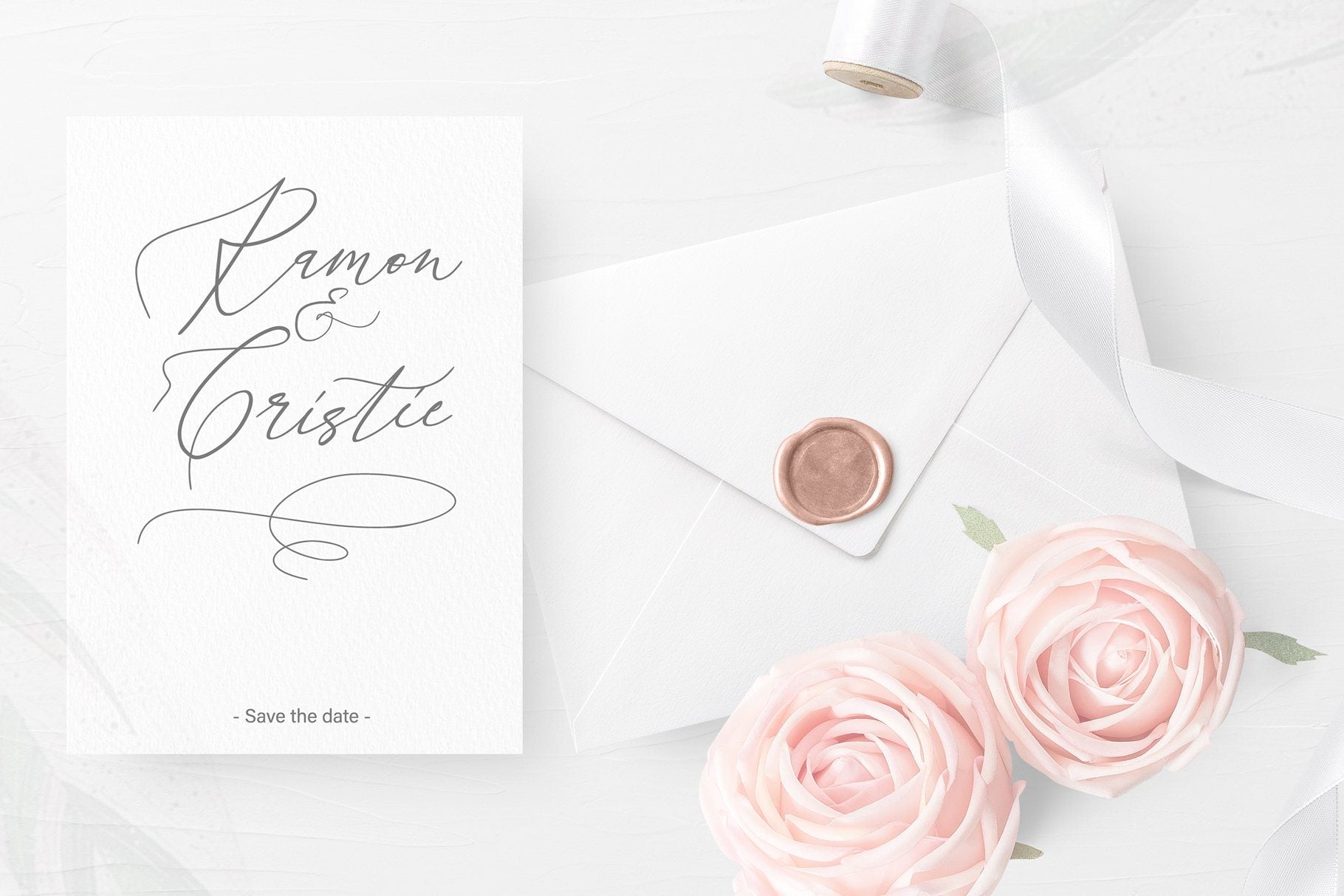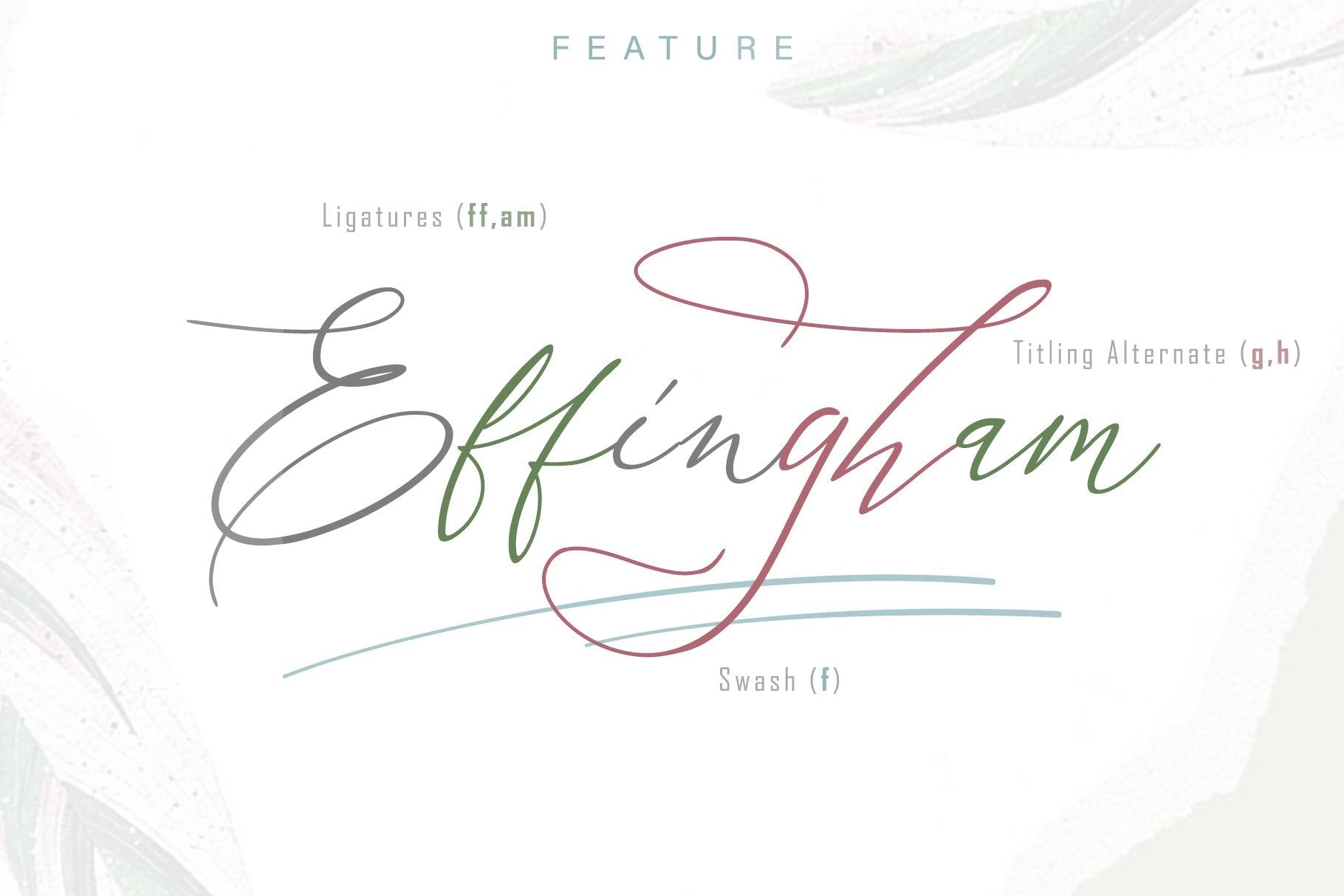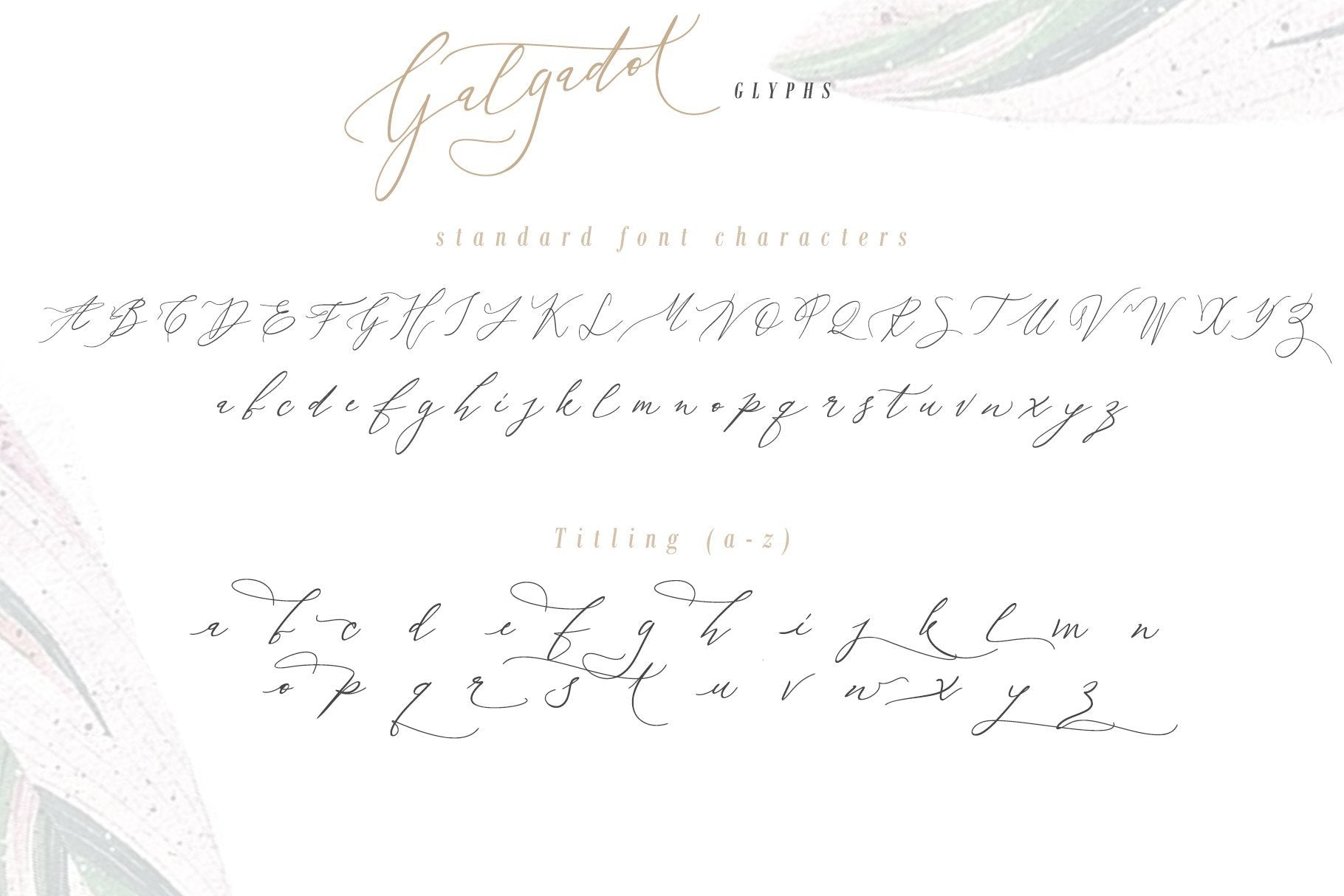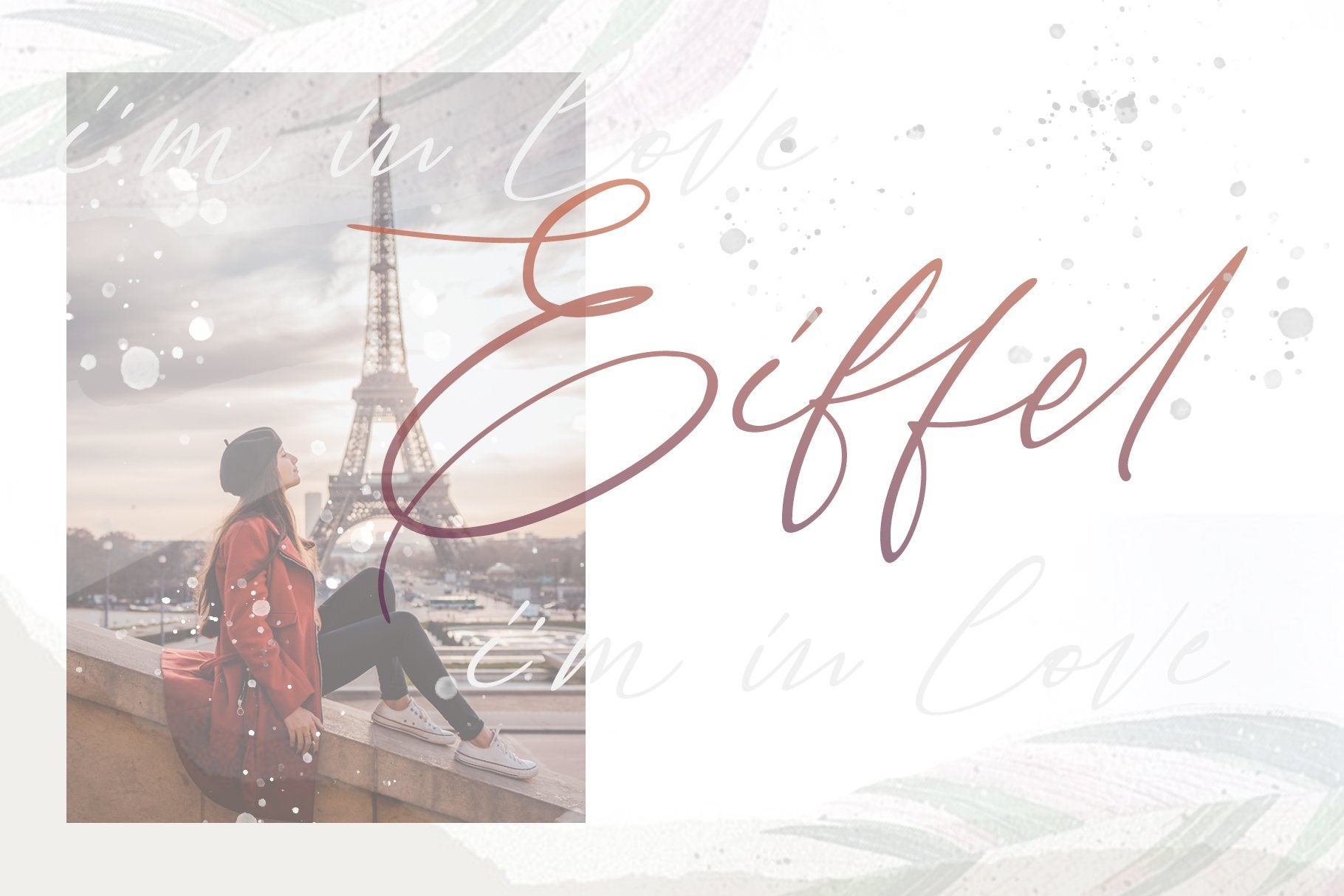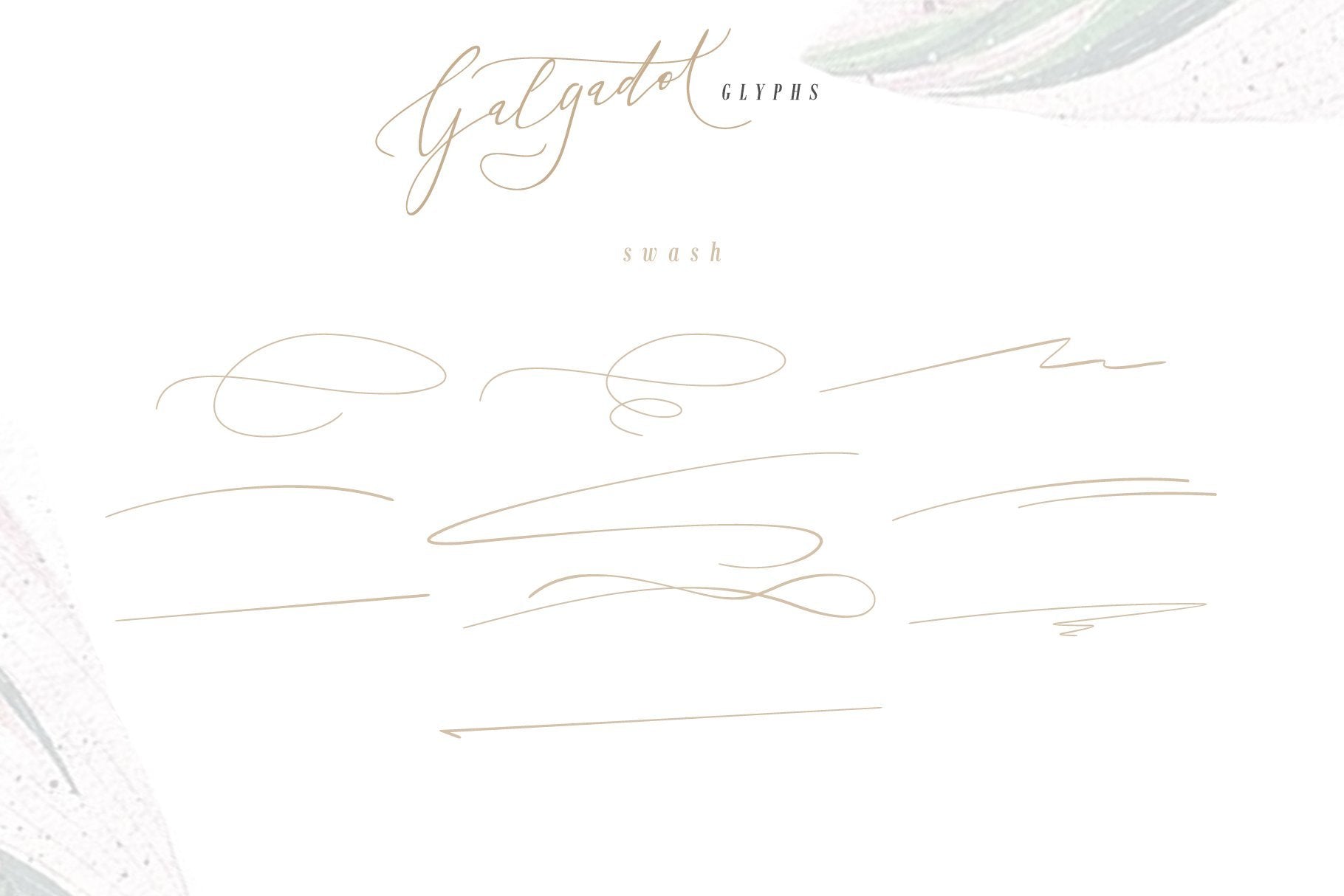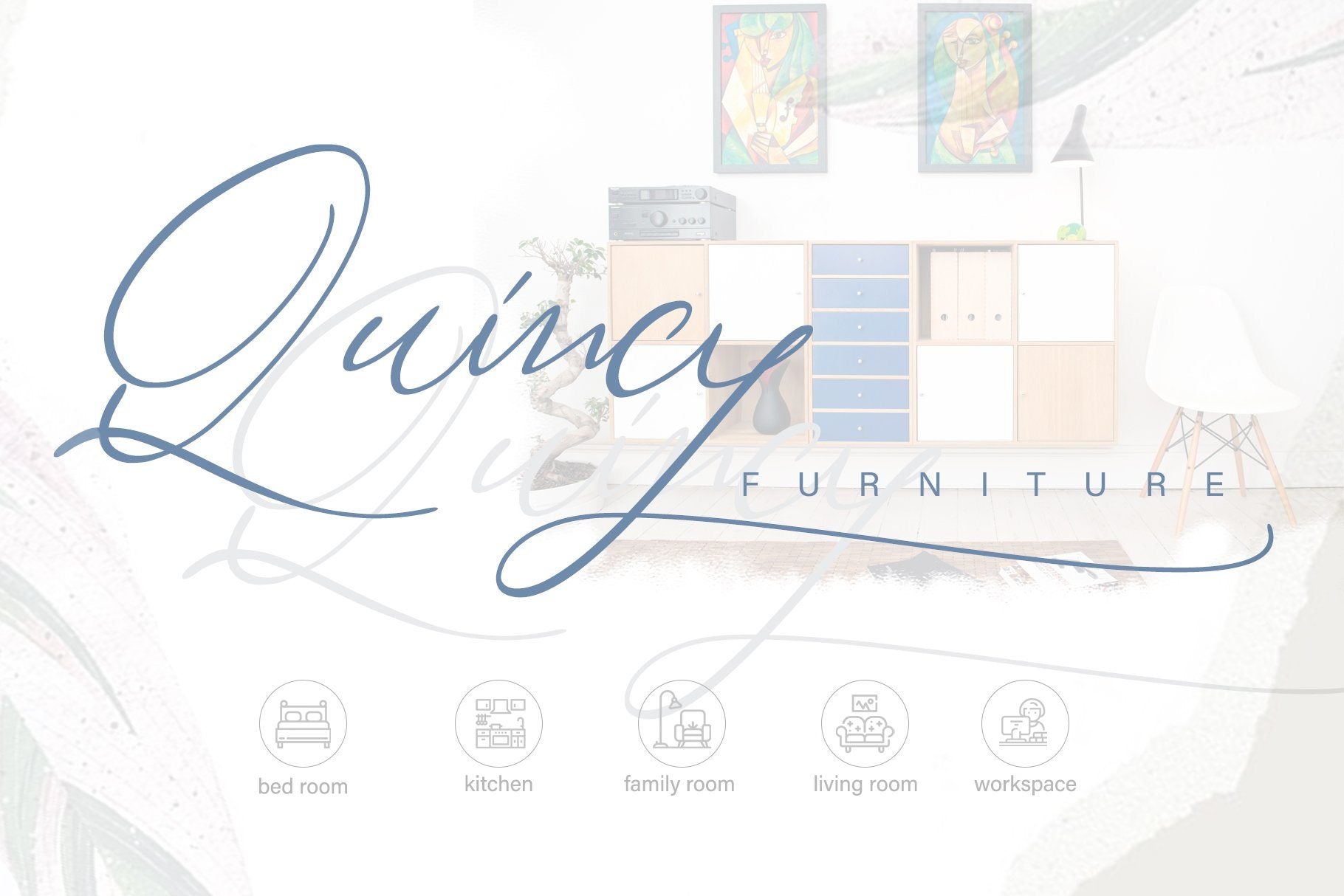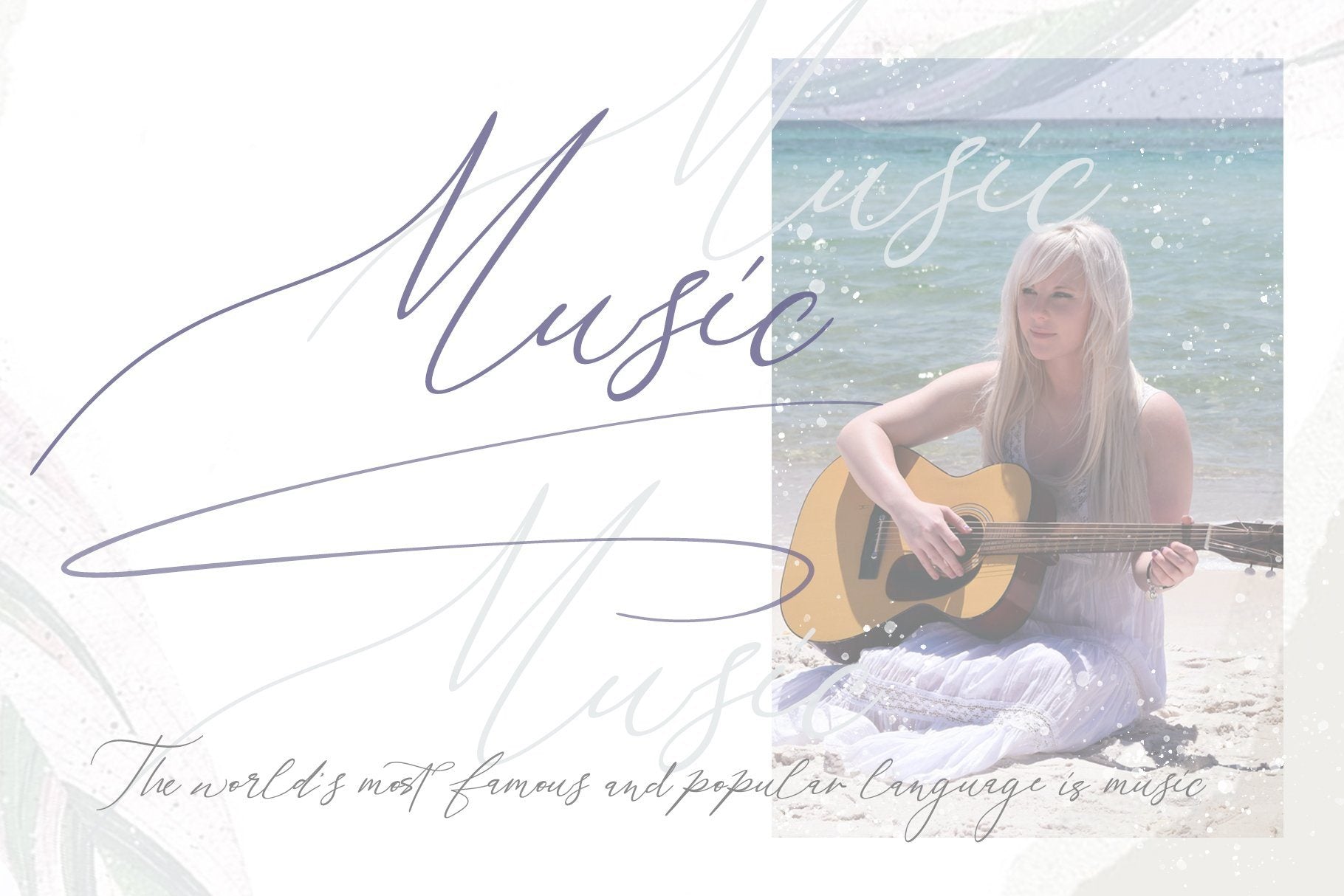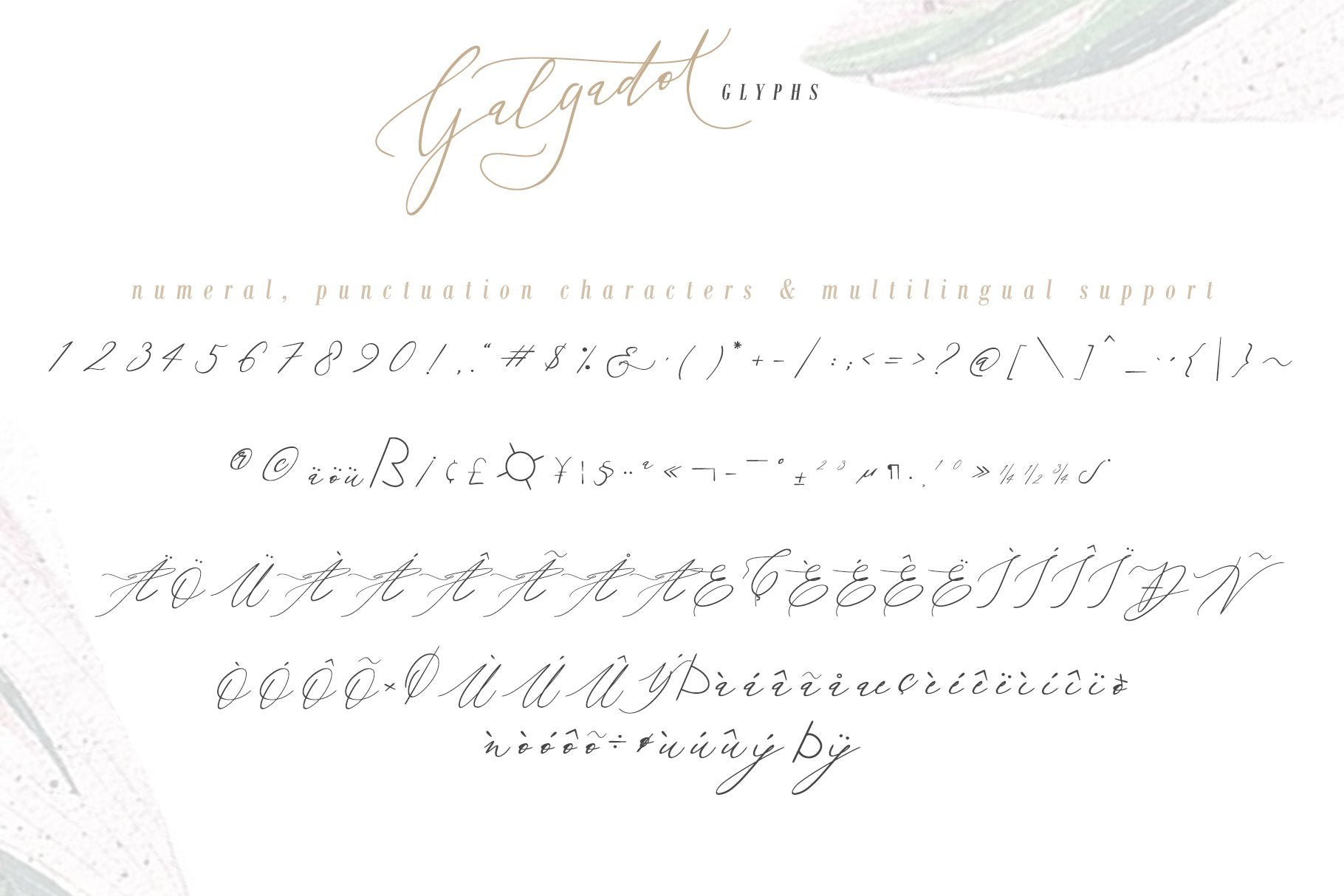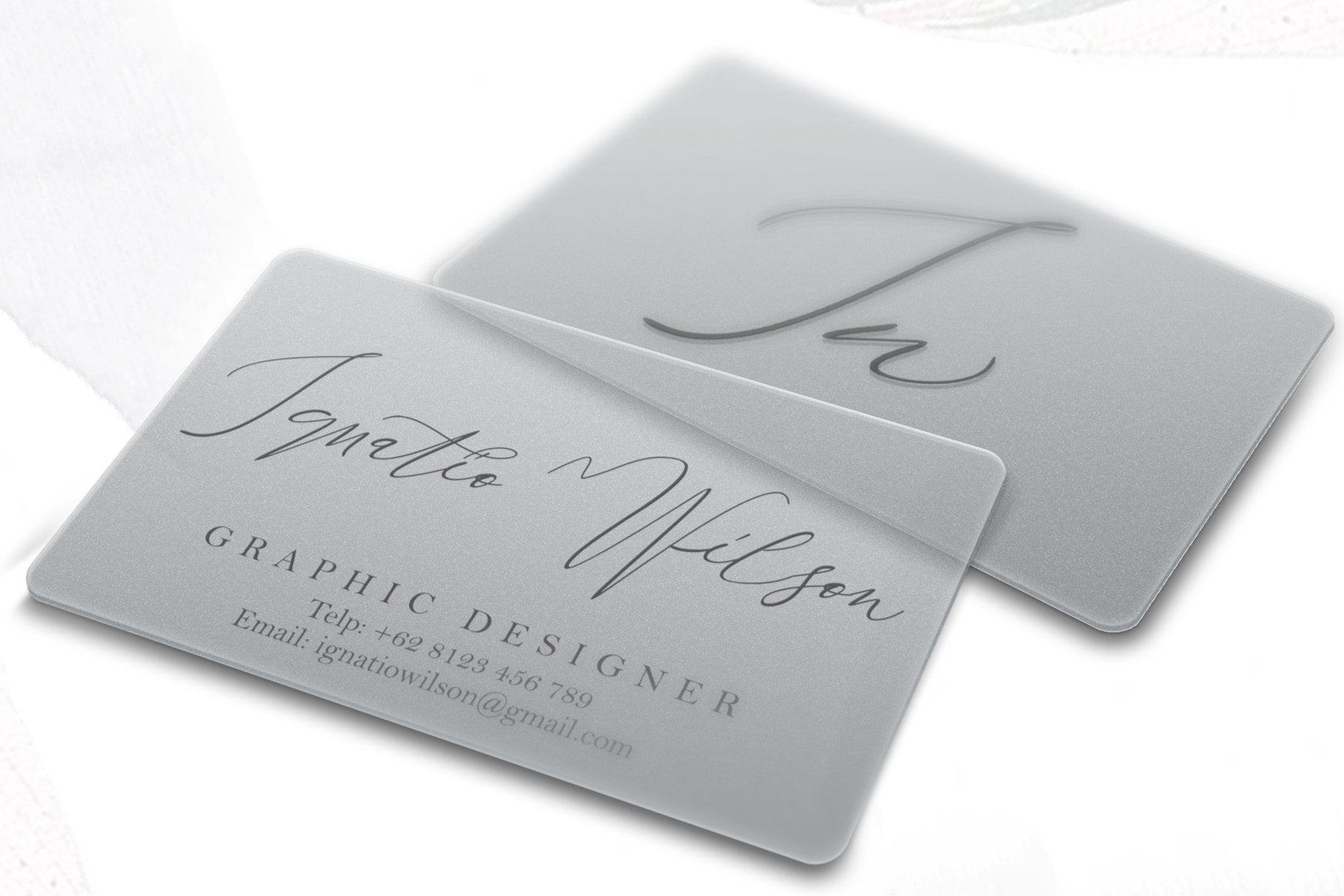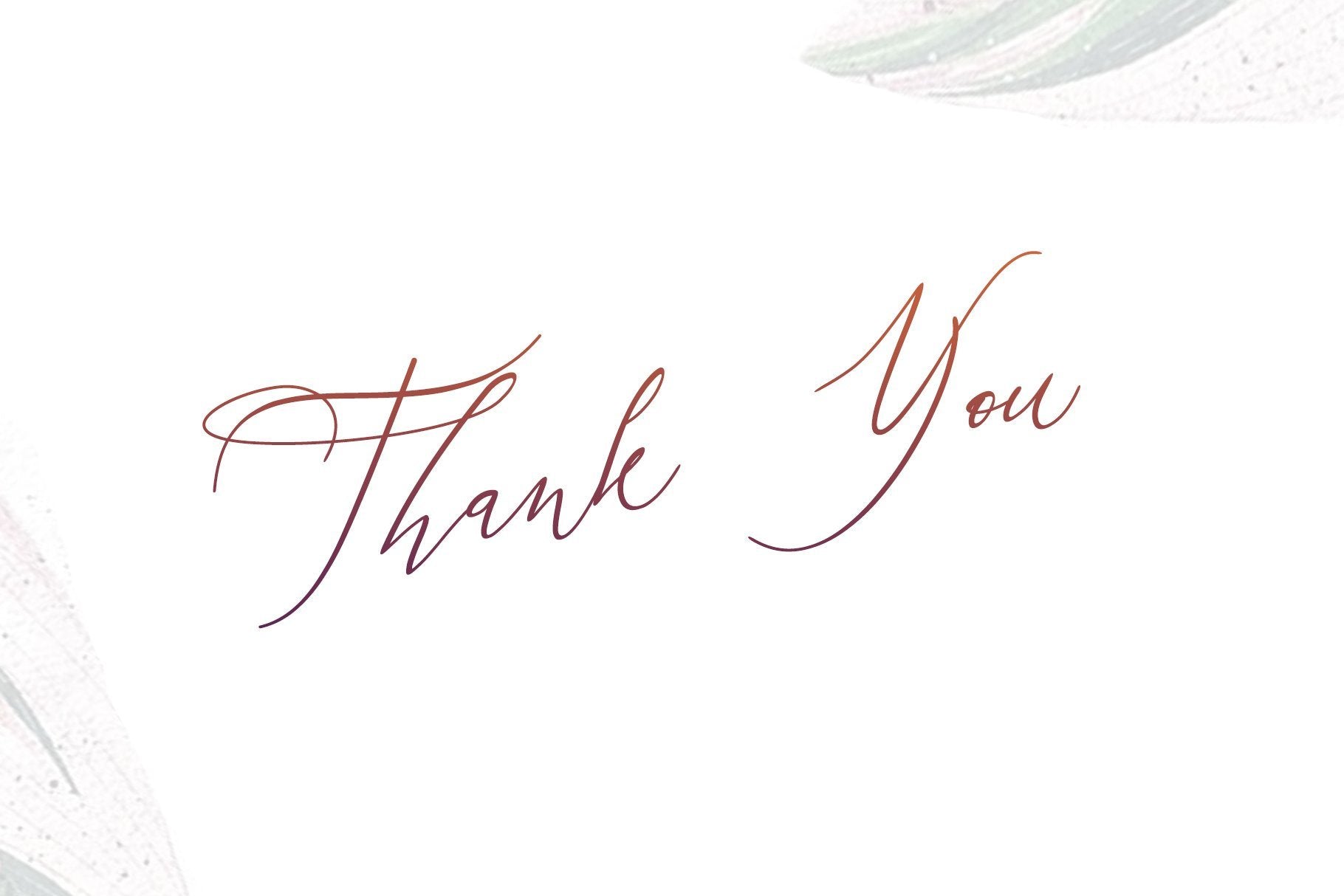
GALGADOT
About GALGADOT
Introducing the Galgadot Stylish Font a classy, fun and fabolous dreamy font inspired by luxury fashion. To keep it luxurious, the Galgadot Font contains 60 ligatures, 26 titling and 10 underscores. ligature as follows: ee ll oo ss tt th ab al am an and any ar are as at att ay by ch can ck cl de ea ed eh el ell en ent er es et ett ew ey ff for get gh ght gn go ha has he her him how in ing is it kn man of ot pp st Galgadot great for logo, printed quotes, badge, insignia, packaging, headline, poster, t-shirt/apparel, greeting card, and wedding invitation, & etc. Our other products : BEST SELLER BLACK PINK SIGNATURE ANDORA BRIGITTA SANTERIA HEANFFE